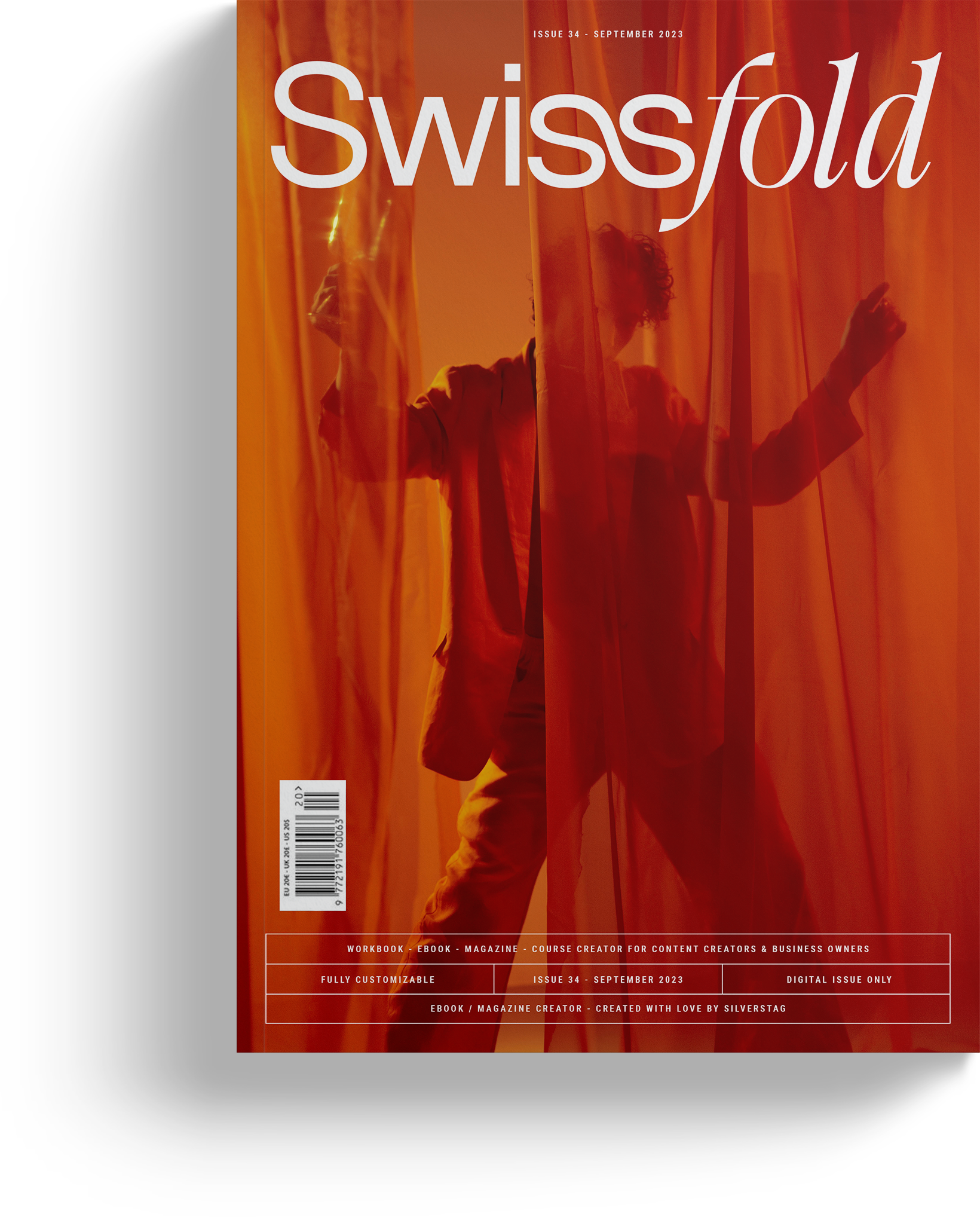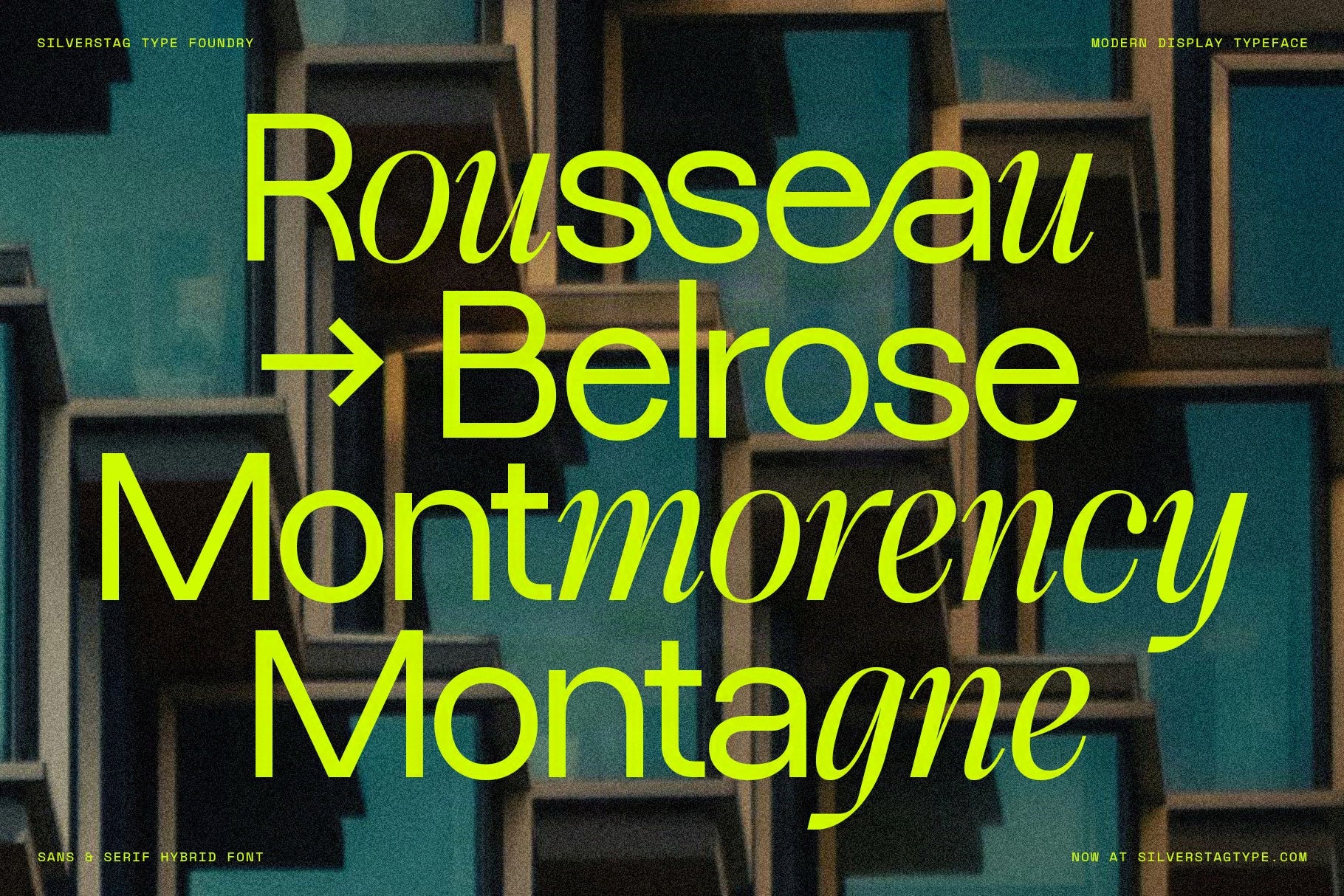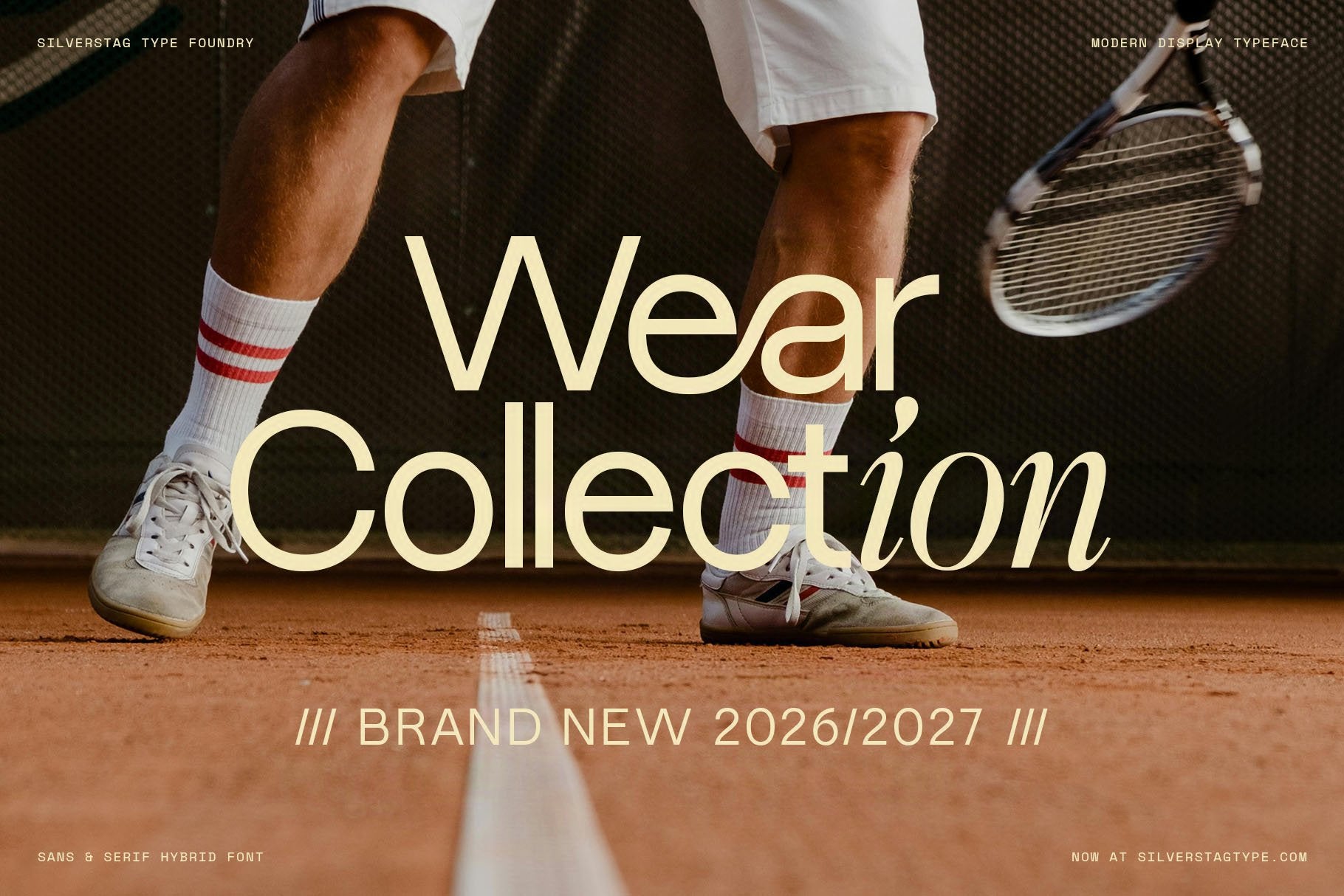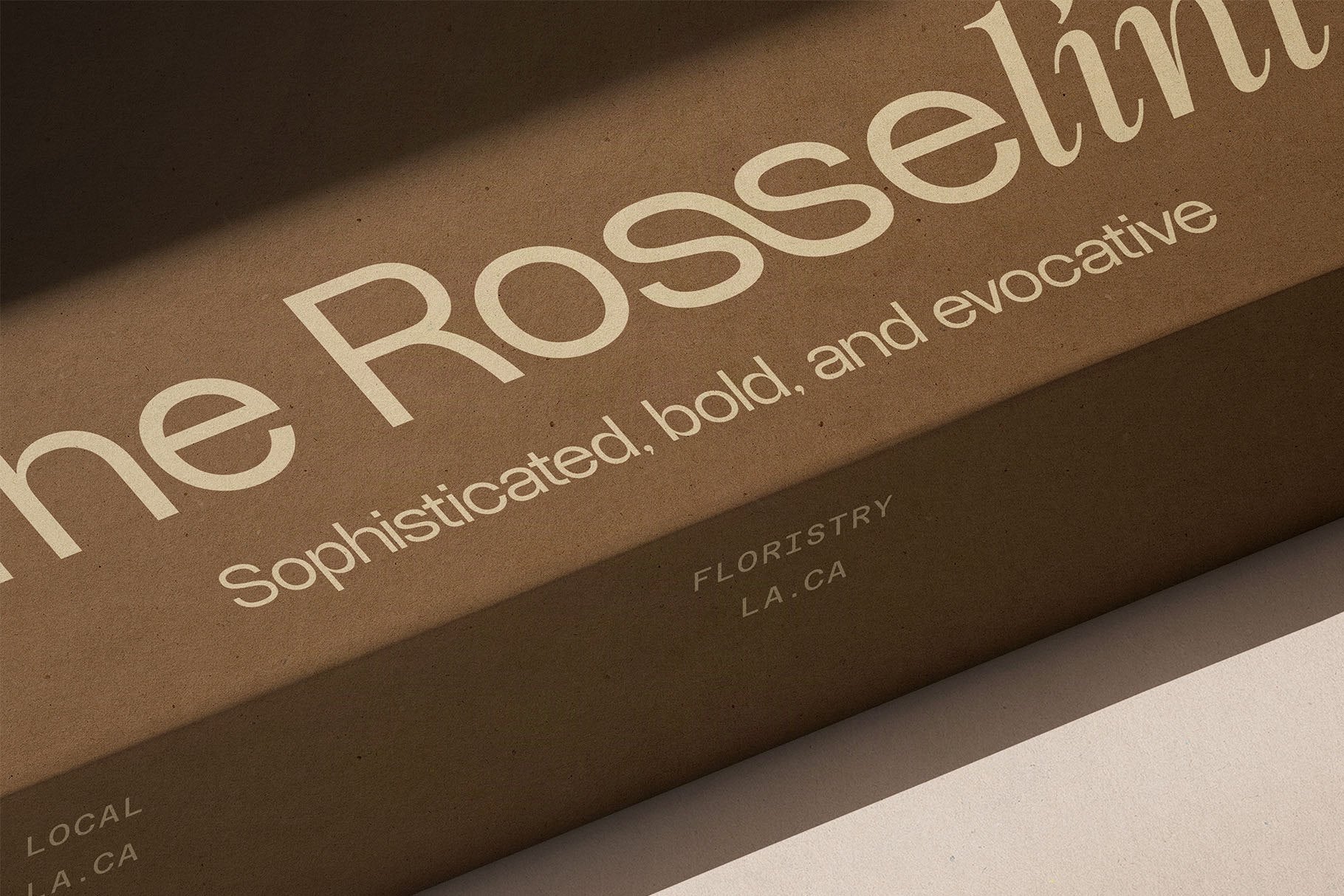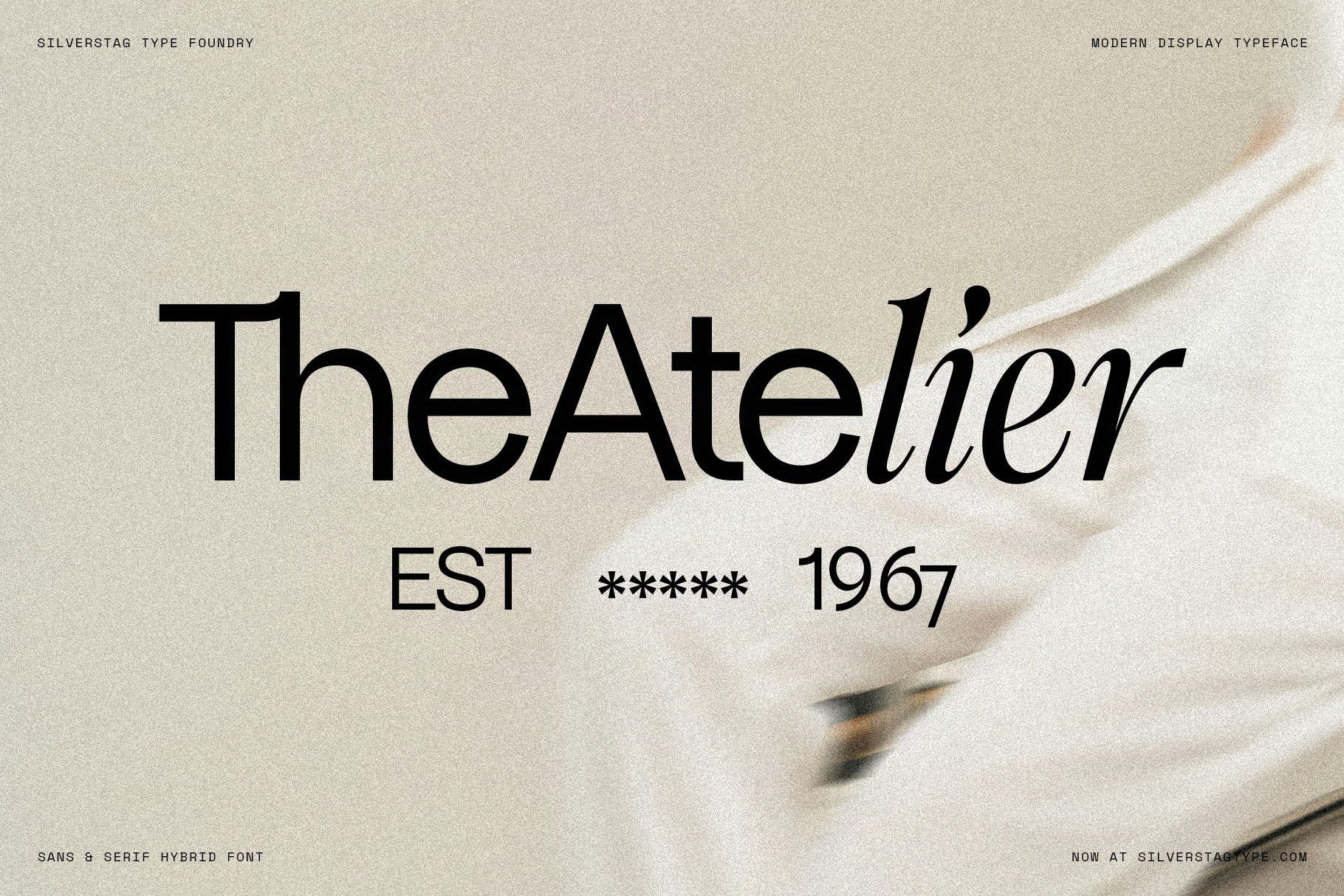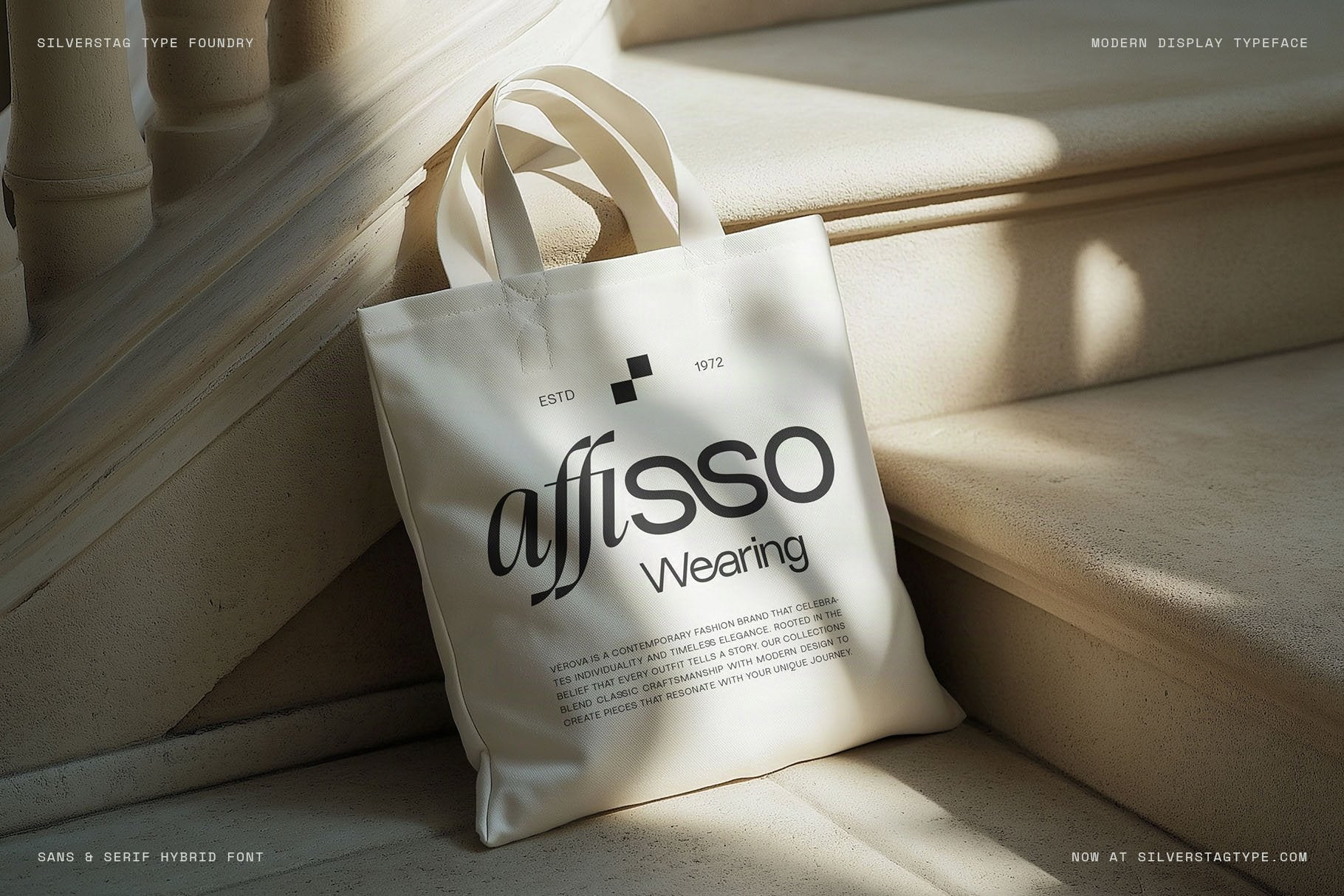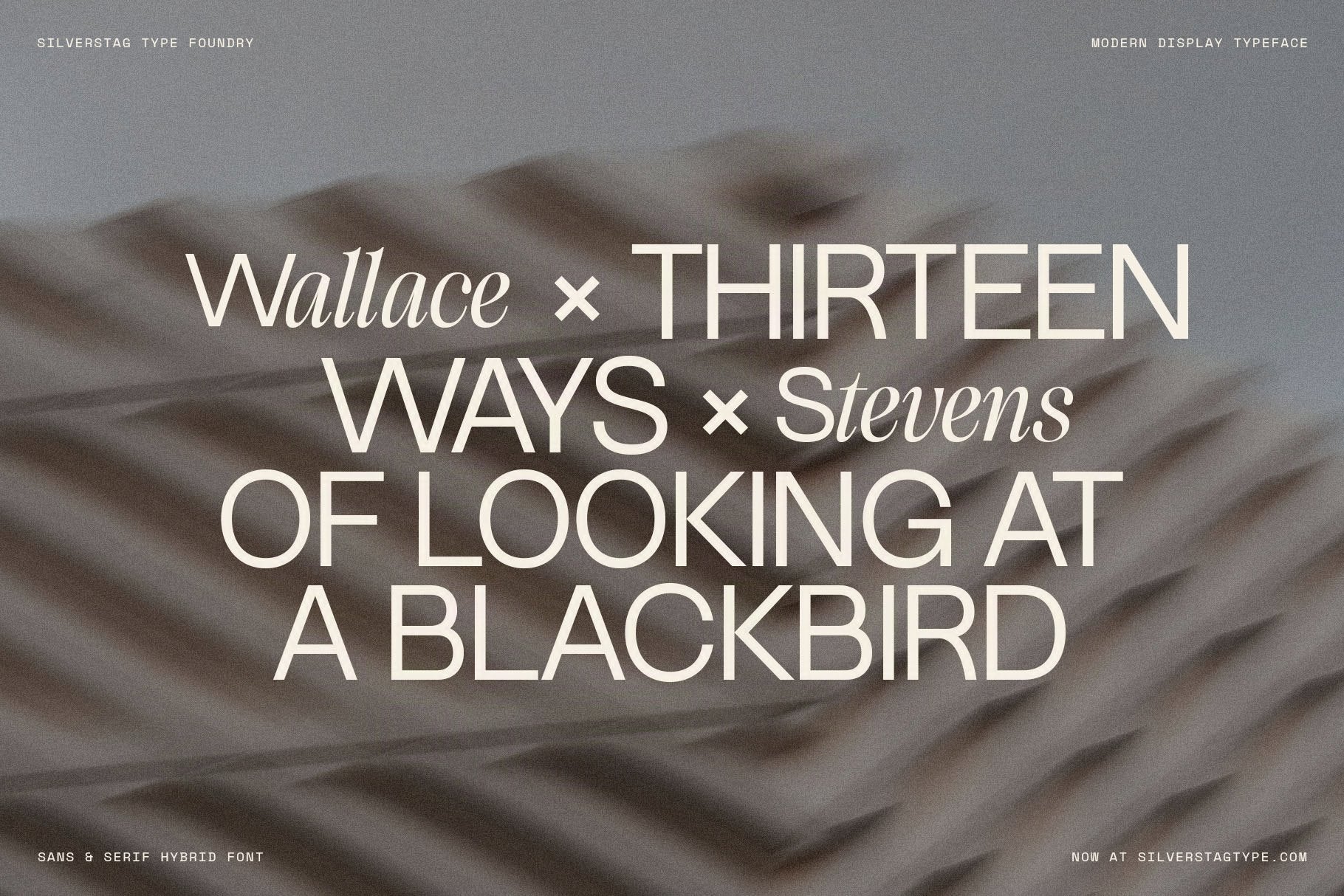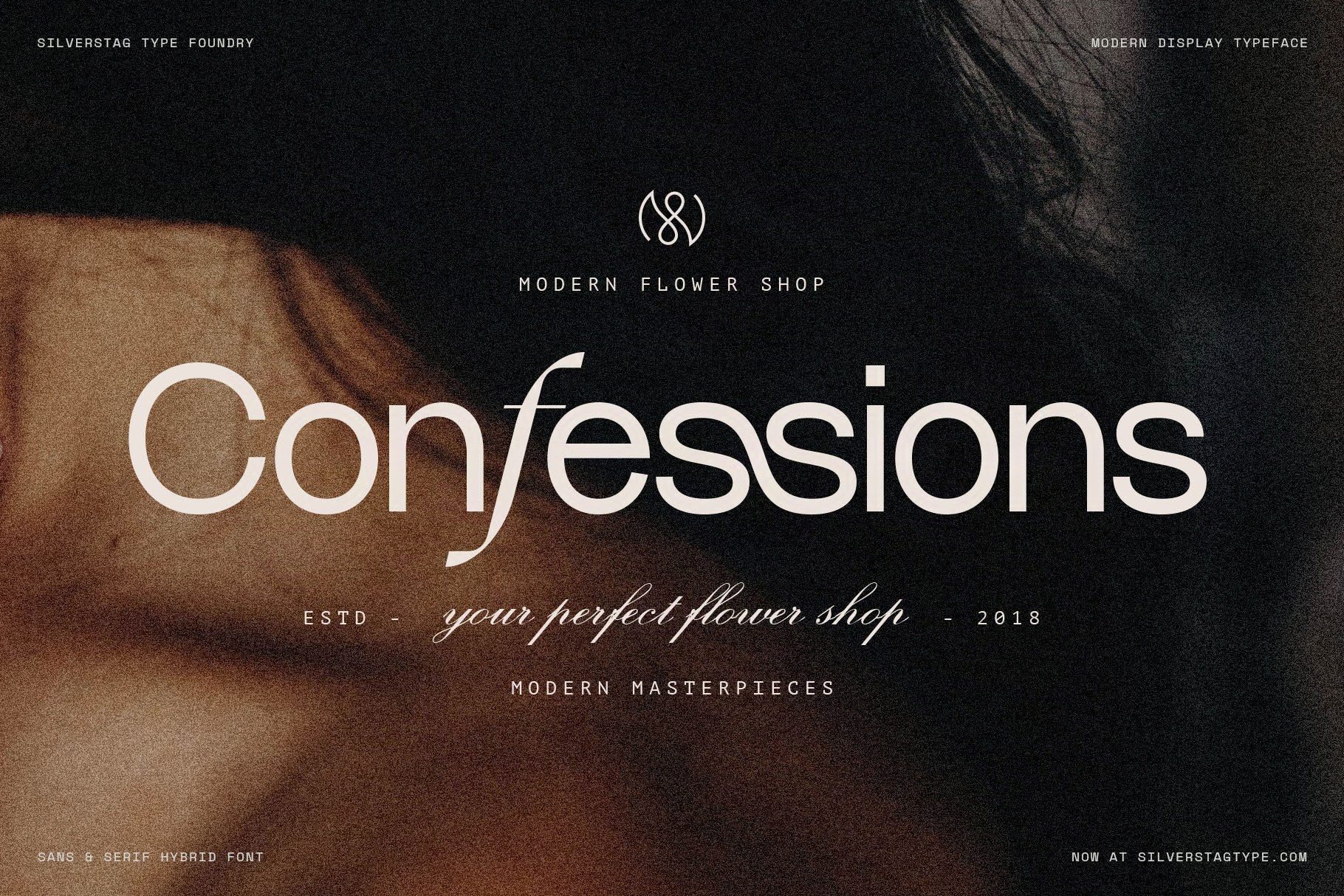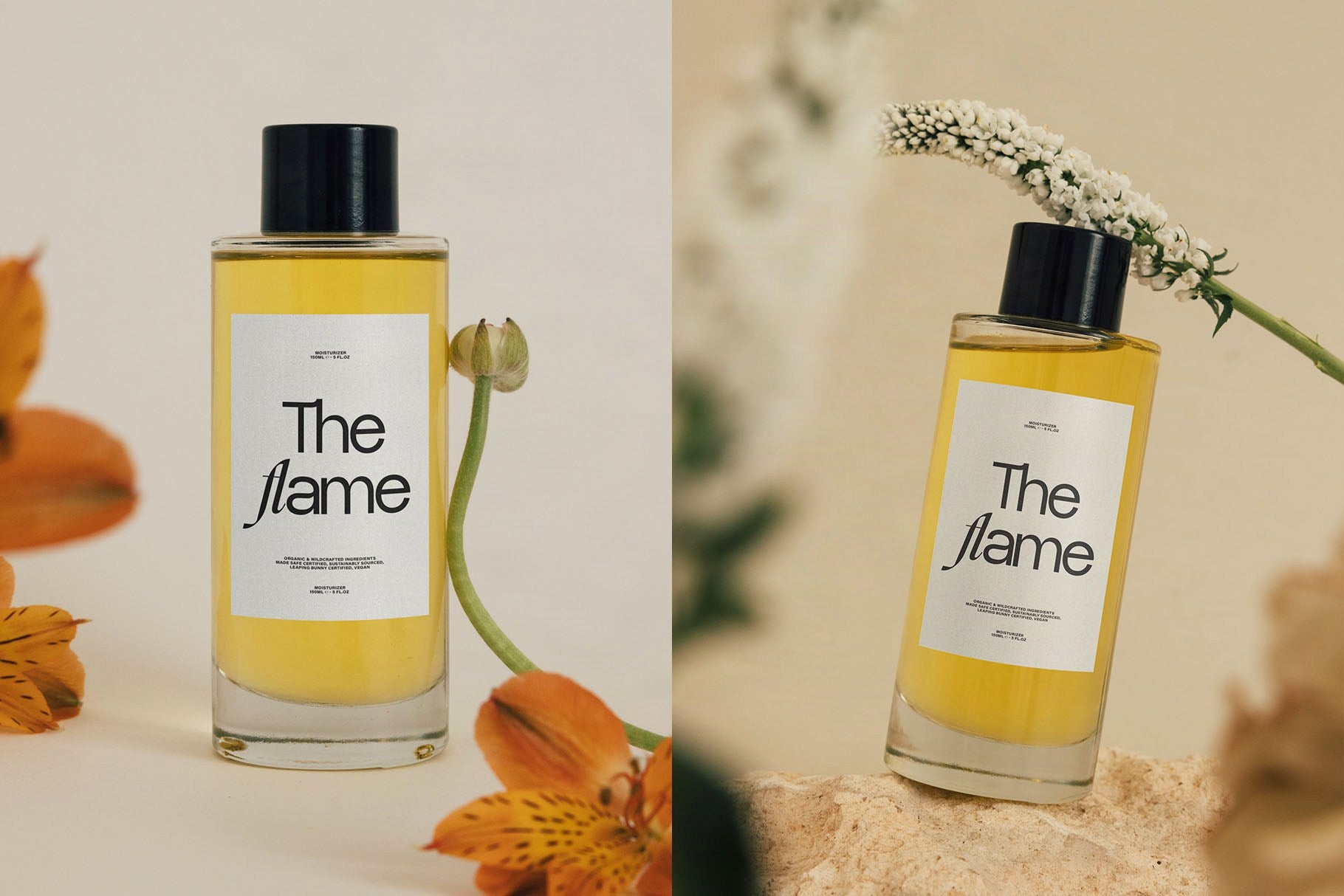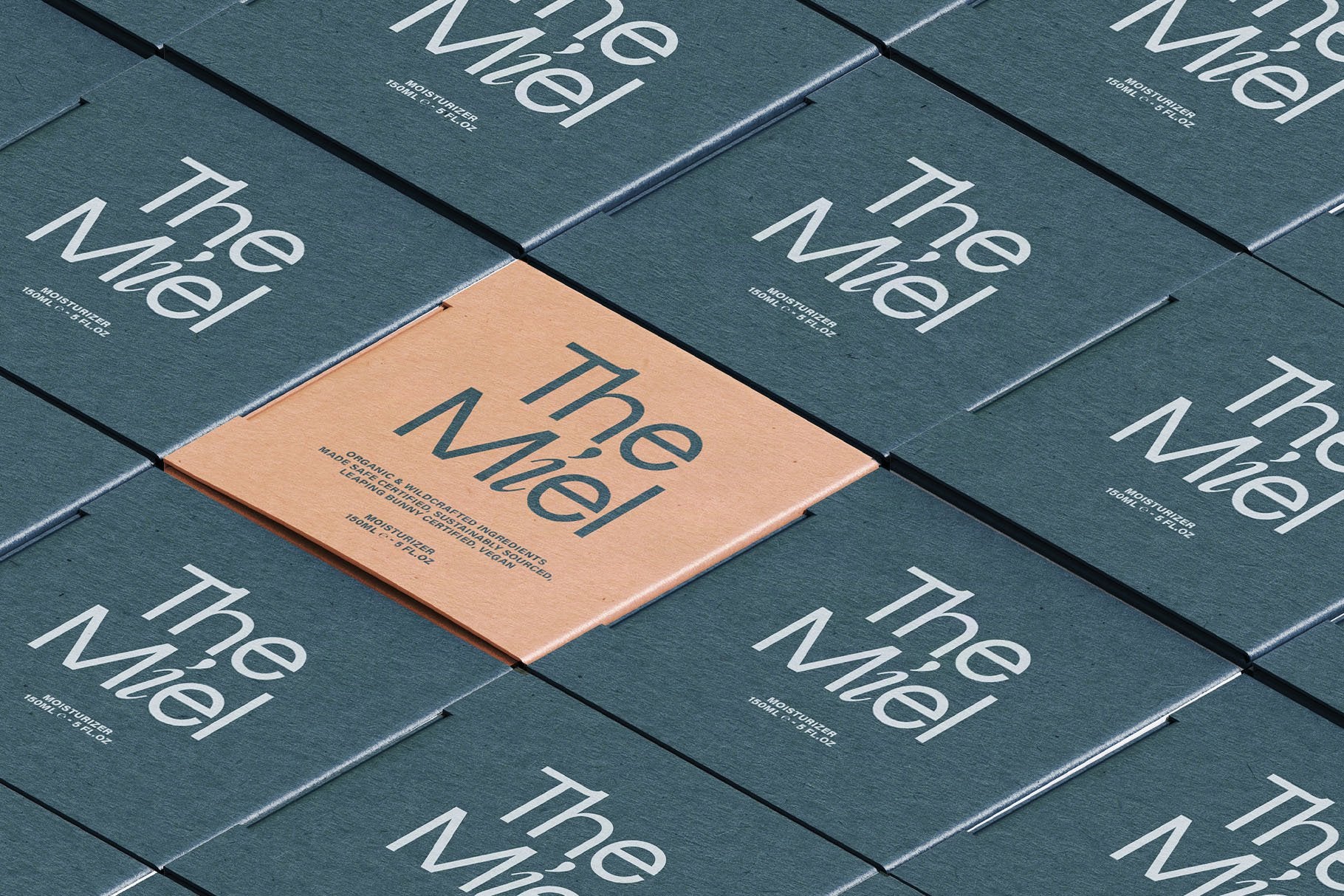
Some fonts play it safe. One style. One voice. Clean all the way through.
Dessign Maison doesn't do that.
SLTF Dessign Maison is a hybrid display typeface — one file, one design, where rounded sans letterforms and calligraphic...
SLTF Dessign Maison is a hybrid display typeface — one file, one design, where rounded sans letterforms and calligraphic serif strokes coexist within the same word. Not two fonts paired. Not a font family. One typeface where the i has a teardrop, the f crosses like a calligraphic hand, and the surrounding letters are clean and geometric — and it all holds together.
The effect is immediate. Set "Dessign" and the word already does two things at once — the D and s are smooth, rounded, modern. The ign breaks into calligraphic territory. The reader doesn't consciously notice the switch, but they feel it. That tension is the entire point.
It works because the design is controlled. The calligraphic elements appear only in letters where the stroke logic earns them — not scattered arbitrarily, but placed where the rhythm of reading benefits from the shift. The result is a typeface that reads as one cohesive system while carrying visible contrast within it.
What that makes it useful for is broader than you'd expect from a display face. Fashion and luxury brand identities where the name needs to look like it was designed, not just chosen. Packaging where the wordmark has to do work at small scale and large. Editorial headlines where something needs to break the grid without breaking the page. Hospitality and food and beverage branding where personality is the whole brief.
What it's built for: — Fashion and lifestyle brand identities and wordmarks — Luxury product packaging and label design — Magazine mastheads and editorial headlines — Food and beverage branding and menu design — Hospitality and hotel brand identity — Advertising campaigns and poster design — Brand naming and logotype design
What makes Dessign Maison a hybrid typeface? Most typefaces are one thing consistently — serif or sans-serif throughout. Dessign Maison is designed so that certain letterforms carry calligraphic strokes and teardrop terminals while others remain clean and rounded. Both systems exist within the single font file and are part of the core design, not optional alternates. The hybrid is built in.
Is this one font or two? One font. One file. The hybrid effect comes from the design of individual letterforms, not from switching between fonts or weight variants.
Is Dessign Maison primarily a display font? Yes. It performs best at headline and display sizes — from 36pt up to full-bleed poster scale. The hybrid detail reads clearly at large sizes. For small text use, pair it with a clean sans or neutral serif for body copy.
What projects is it best suited for? Fashion and lifestyle brand identities, luxury packaging, editorial mastheads, hospitality branding, food and beverage, and advertising. Any project where the typography itself is part of the concept.